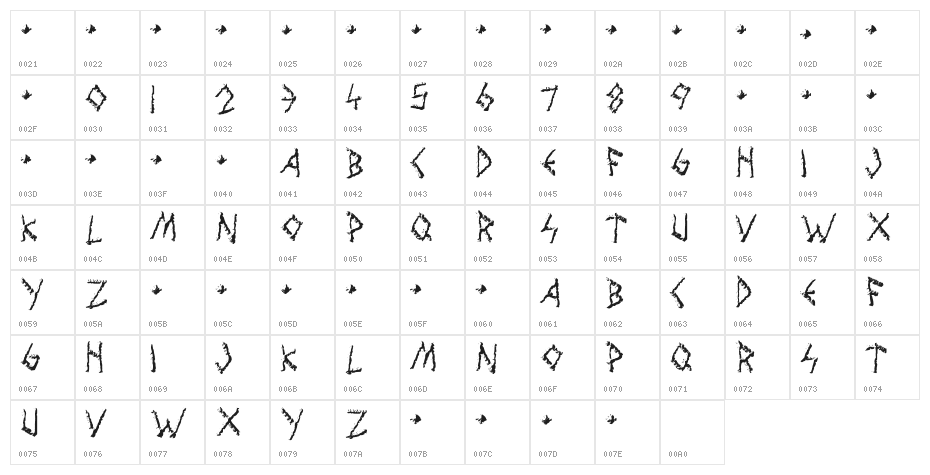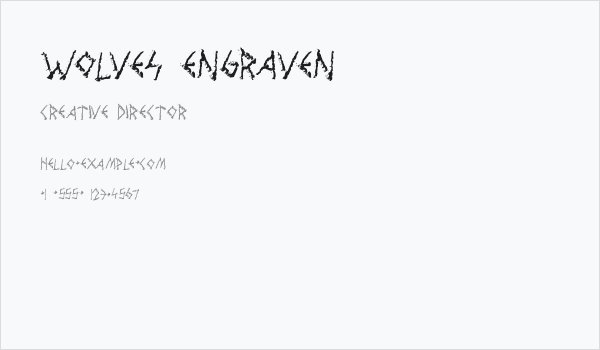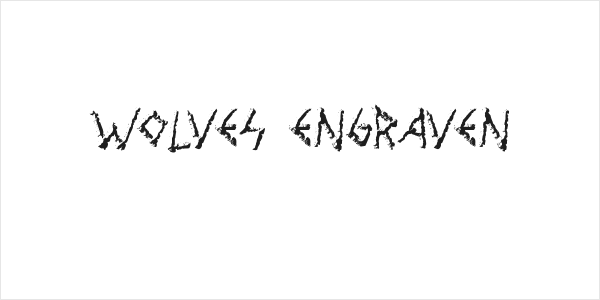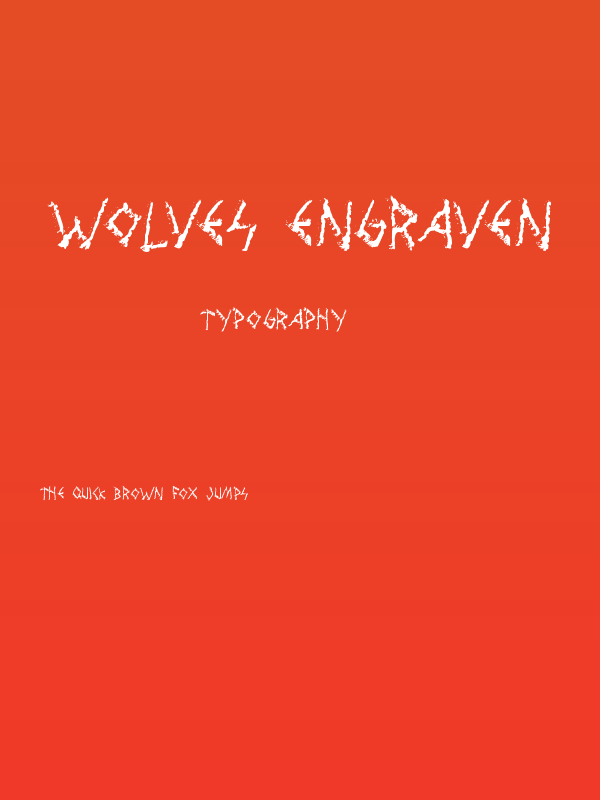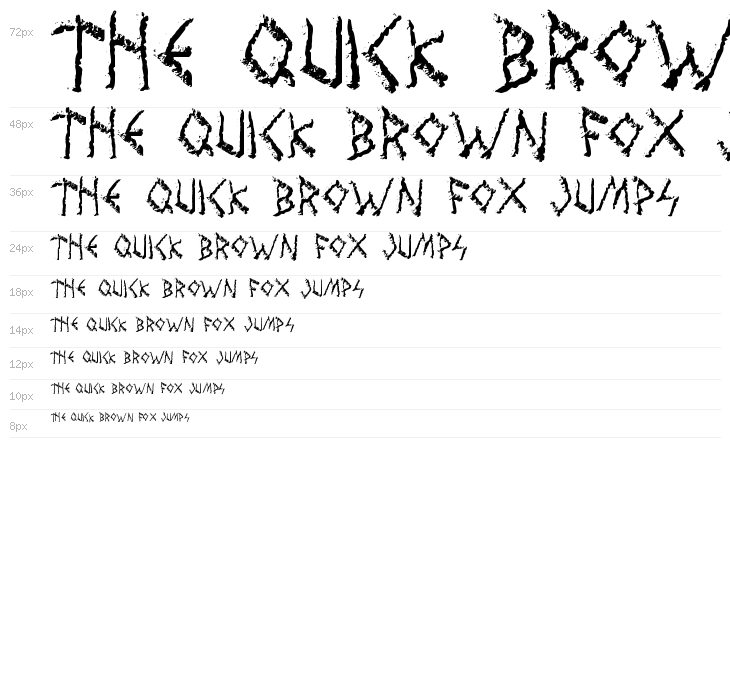
Wolves Engraven Font
Wolves Engraven Description
This font features a rugged, hand-carved appearance, reminiscent of ancient engravings or tribal markings. Each character is uniquely distressed, giving it a raw and organic feel. The strokes are uneven and jagged, adding to the wild and untamed aesthetic. The uppercase and lowercase letters maintain a consistent style, with sharp angles and rough edges. Numbers and special characters follow the same design principles, ensuring a cohesive look across all glyphs. This font evokes a sense of mystery and primal energy, making it ideal for projects that require a bold and unconventional typeface.
Proposed ProjectsPerfect for album covers, movie posters, video game titles, or any project needing a bold, primal touch.